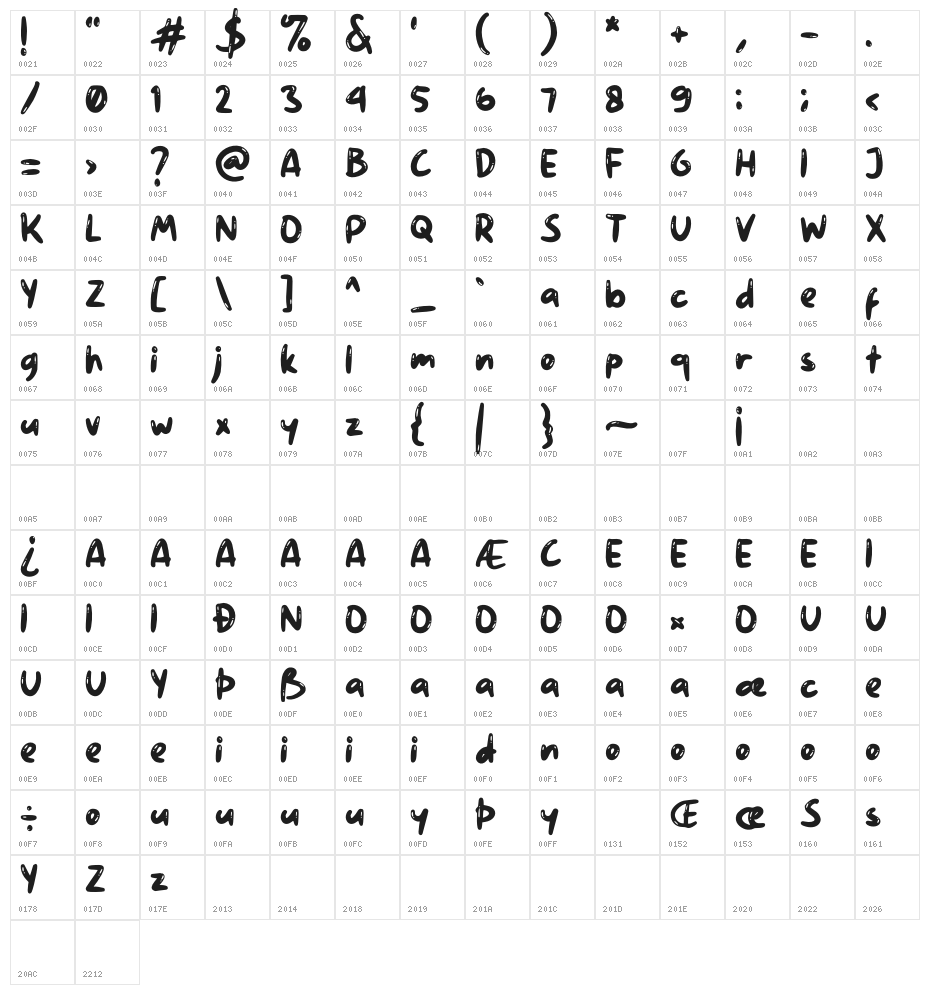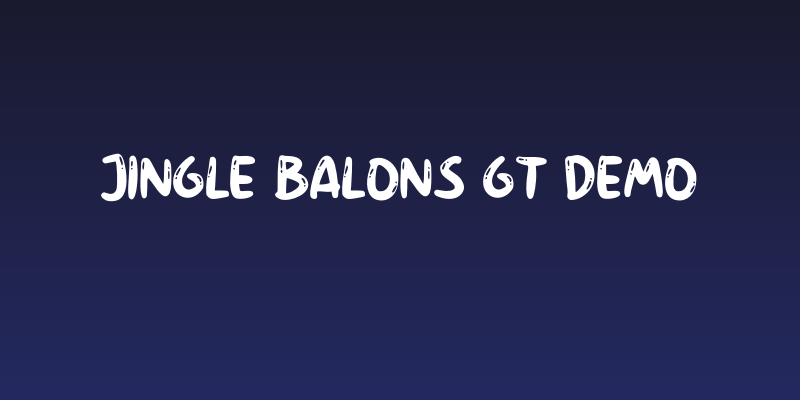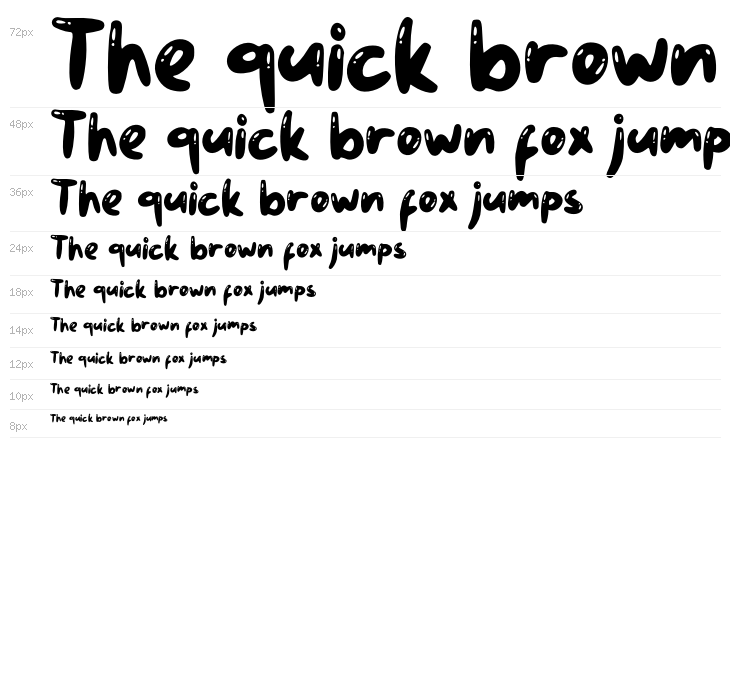
Jingle Balons GT Demo Font
Jingle Balons GT Demo Description
This playful and bold font features a hand-drawn style with a bubbly, cartoonish appearance. The characters are thick and rounded, giving them a friendly and approachable look. Each letter has a unique, slightly irregular shape, adding to the whimsical feel. The font includes both uppercase and lowercase letters, numerals, and a variety of special characters. Its bold strokes and playful design make it ideal for projects that require a fun and informal touch.
| Proposed Projects | Ideal for children's books, comic strips, playful branding, party invitations, and social media graphics. |